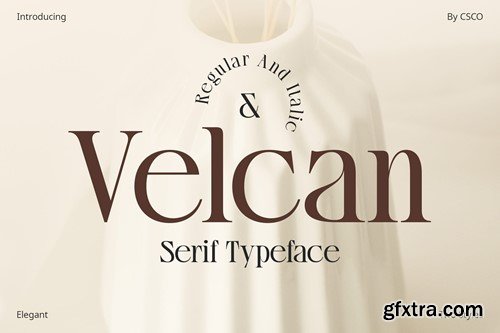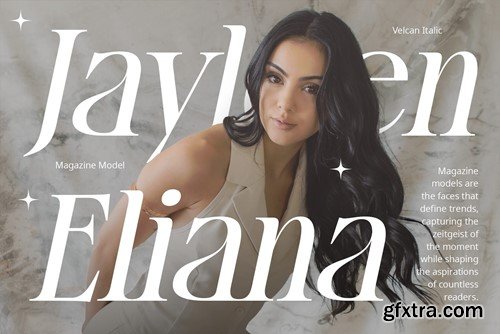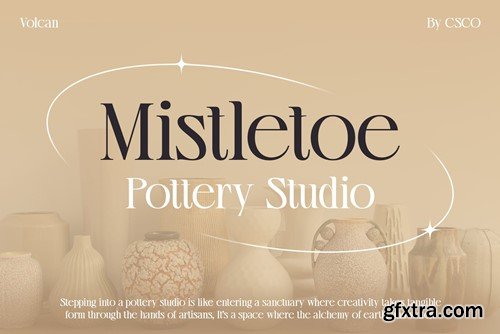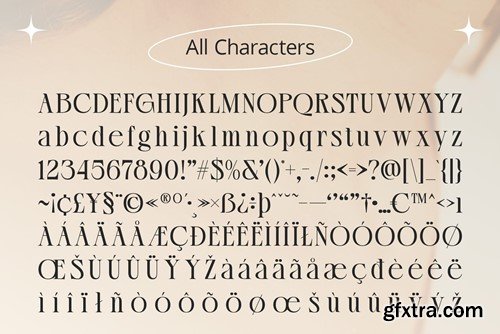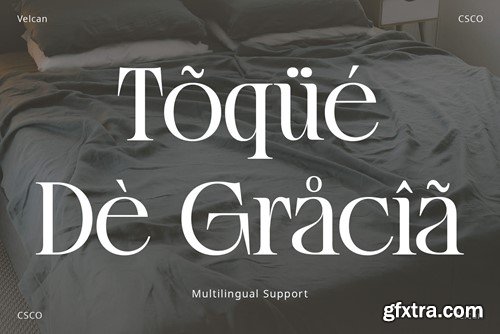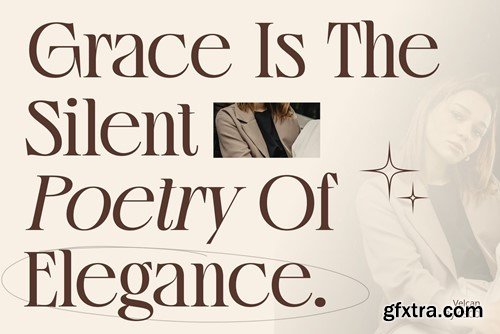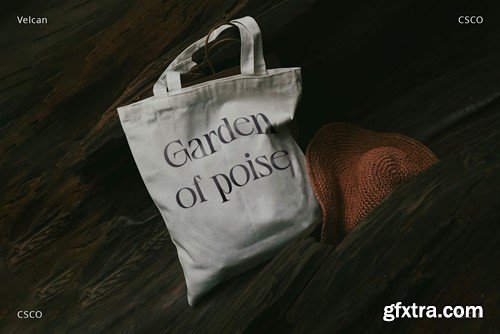
威尔坎 – 美术字体 LEJM3HP
Velcan: Where Elegance Meets High Contrast Captivating Elegance Velcan, a serif typeface, beckons with its captivating elegance, a dance of curves and serifs that add a touch of sophistication to your designs. Defined by High Contrast What sets Velcan apart is its high contrast, where the interplay between thick and thin strokes becomes a visual symphony. Each letter is a masterpiece, meticulously crafted to deliver a timeless aesthetic. Elevate Your Design Embrace the essence of Velcan to elevate your projects. From editorial layouts to branding, the high-contrast serif brings an air of refinement that resonates with classic elegance. In Conclusion Velcan, the epitome of sophistication, marries elegance with high contrast, creating a visual language that speaks volumes in every design. Let Velcan be the silent narrator of your refined and stylish creations. What you get : Velcan Regular Velcan Italic Features : Uppercase and lowercase characters Numerals and Punctuation (OpenType Standard) Accents (Supports Multilingual Characters) PUA Encoding You can use this typeface without needing any specialized software. If you have any inquiries or need assistance, please feel free to contact us. We appreciate your support in enhancing your creative projects! Best regards, Craft Supply Co.